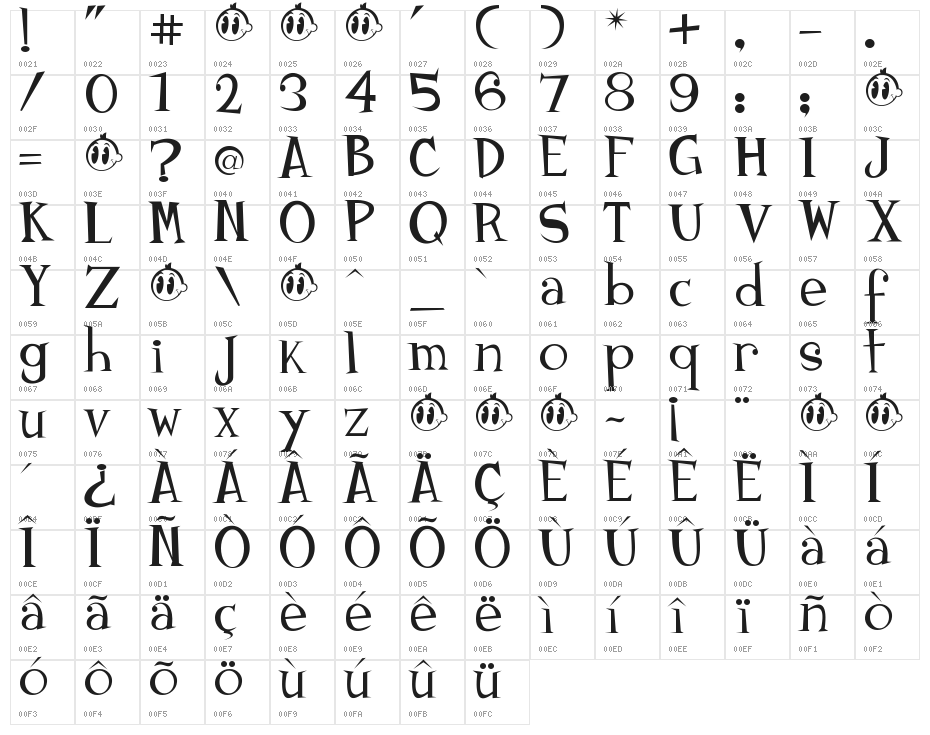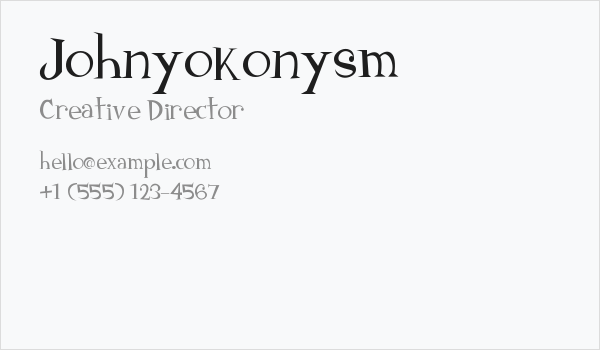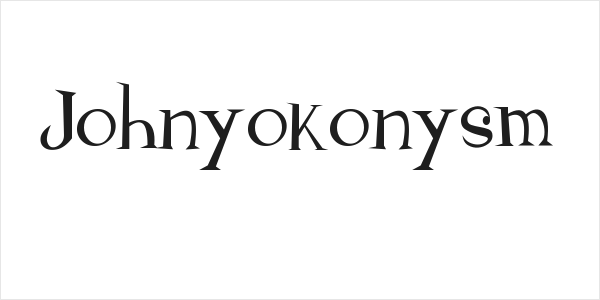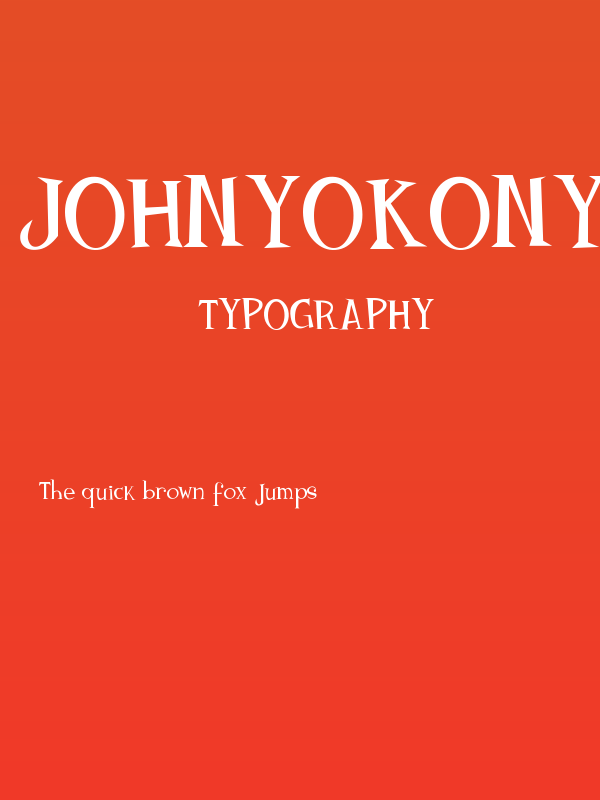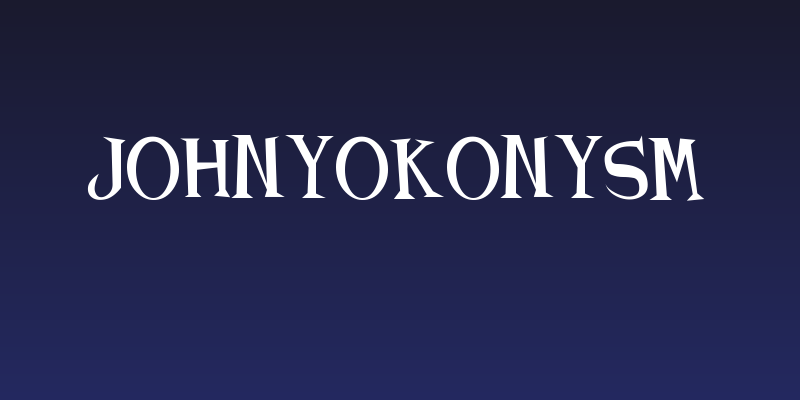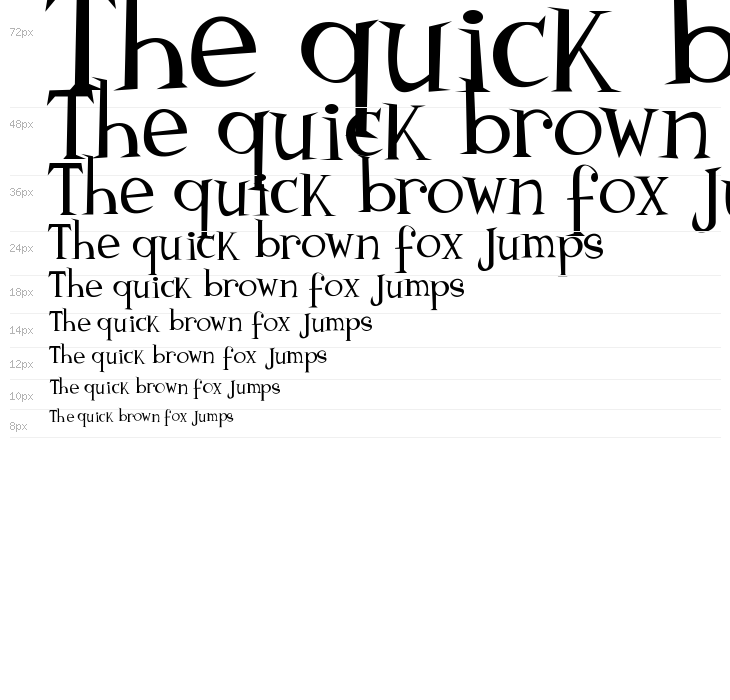
Johnyokonysm Font
Johnyokonysm Description
This font features a whimsical and playful design, characterized by its unique and exaggerated serifs. The letters exhibit a dynamic flow with varying stroke thickness, adding a sense of movement and energy. The uppercase letters are bold and commanding, while the lowercase letters maintain a quirky charm. The numerals are distinct and easily recognizable, complementing the overall style. Special characters are creatively designed, adding to the font's playful nature. This font is ideal for projects that require a fun and engaging aesthetic.
| Proposed Projects | Ideal for children's books, playful branding, creative posters, and whimsical invitations. |